Christmas Fonts
Plain "Merry Christmas" text disappears fast in a feed full of red-and-green graphics, so this page leads with two styles built for the season: Snowman Bold frames your message between a pair of ☃ marks for a card-front look, and Holly Ornament pairs a flowing script with the ❊ dingbat for something closer to hand-lettering on a gift tag.
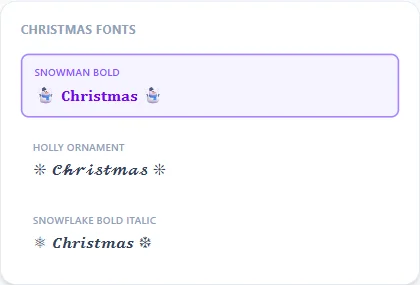
Two styles built specifically for the holidays
Snowman Bold wraps the whole message between a pair of ☃ marks, which reads well as a short header line on a card front or a party flyer. Holly Ornament pairs the same idea with a flowing cursive script and the ❊ dingbat instead, closer to hand-lettering on a gift tag or a wreath. The two existing Snowflake styles below round out the wintry range if neither one quite fits.
Picking a style for a card, a caption, or a gift tag
A printed or digital card has room for a longer, more decorative style like Holly Ornament. A social caption competing with a busy feed reads better in something bold and high-contrast, like Snowman Bold. A small gift tag benefits from either, since both frame the message clearly even at a small size.
Is there a style made specifically for Christmas, or are these just the general list?
Snowman Bold and Holly Ornament were built specifically for this page — they lead the list, with the rest of the site's 160+ general styles available below, including the two Snowflake styles that also fit a winter theme.
Can I use a Christmas style for something other than "Merry Christmas"?
Yes, type whatever you want (a name, a year, "HOHOHO") — every style applies to any text you enter, not just holiday phrases.
Why does Snowman Bold add a mark on both sides of my text instead of around every letter?
It frames the whole message once rather than each character individually, keeping the ☃ marks readable as bookends rather than crowding a longer sentence — different from a per-letter style like this site's Birthday Candles.
Do these fonts work for other winter occasions, not just Christmas?
Yes — both styles read fine for New Year's messages, winter formals, or any other cold-weather occasion; nothing about the underlying characters restricts them to Christmas specifically.